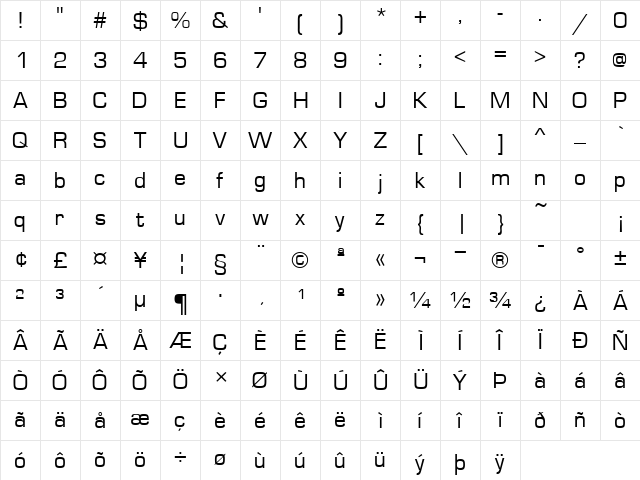
PelicaSSK Regular
Design Context for PelicaSSK
PelicaSSK is a composed and adaptable typeface that performs quietly and consistently across a wide range of design contexts.